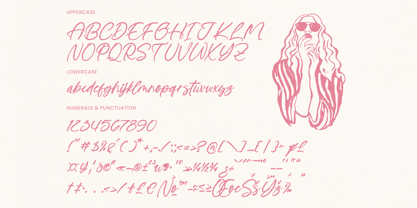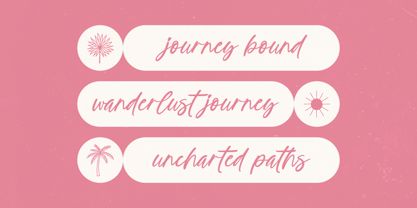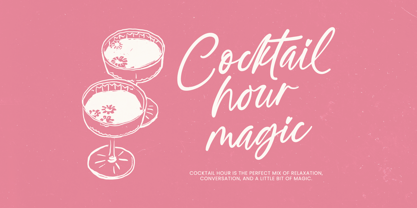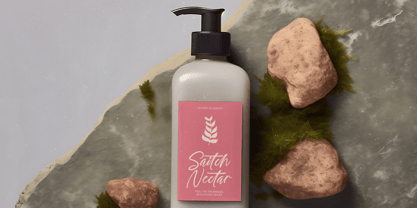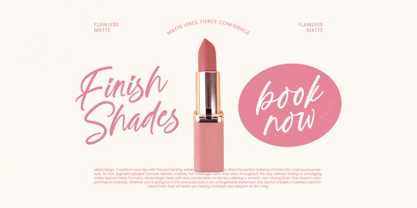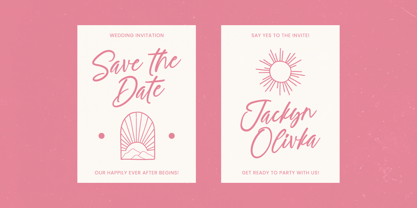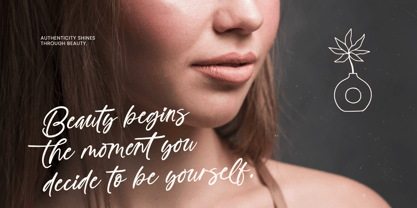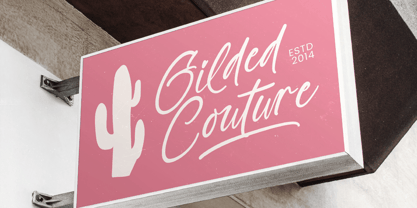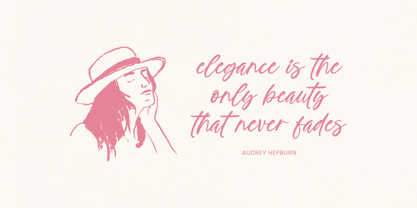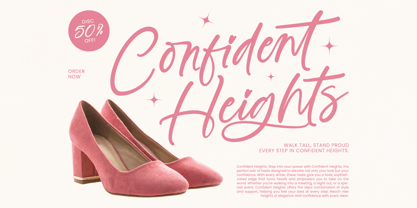
Jenita Cutes
by Stylishtype Studio
The Jenita Cutes Font Family was designed by Heru Utama Putra and published by Stylishtype Studio. Jenita Cutes contains 2 styles and family package options. More about this family
Jenita Cutes is a sweet and modern bold handwritten script with a soft feminine flow. Rounded strokes, playful curves, and a charming heart-styled detail make it perfect for branding aimed at beauty, fashion, stationery, wedding design, social media quotes, and anything that needs a warm, cute, and approachable handwritten personality. With 115 ligatures, 15 alternates, and 8 swashes, this font gives you the flexibility to create elegant, romantic, and aesthetically pleasing typography effortlessly.